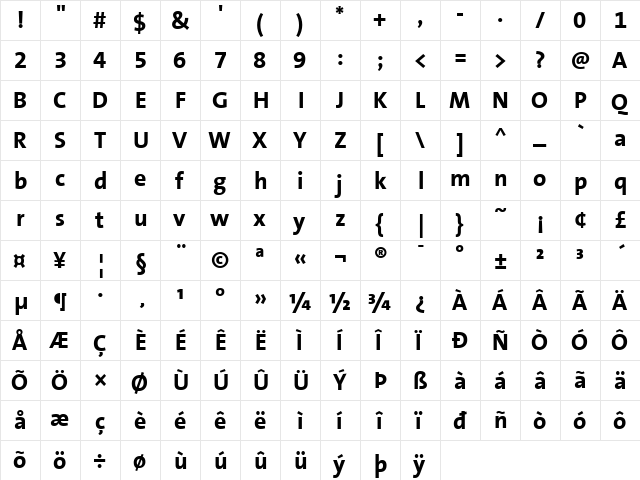
TheSansCorrespondence Regular
| Foundry | Luc[as] de Groot developer TheTypes bv, Amsterdam, published by FontShop International for FontFont release |
Design Context for TheSansCorrespondence Typeface
TheSansCorrespondence takes a measured approach to typography — its balanced proportions and neutral character make it a reliable workhorse for both digital and print work.